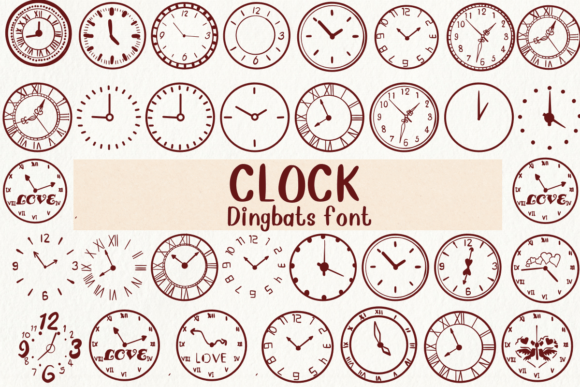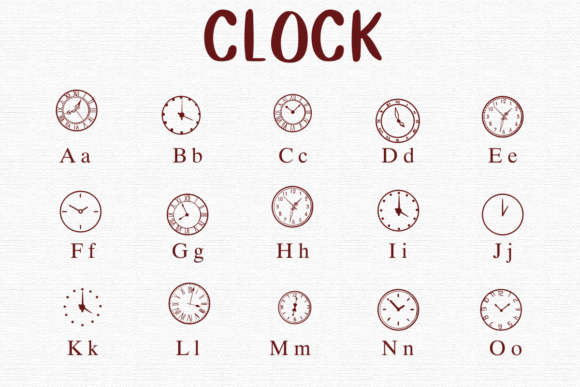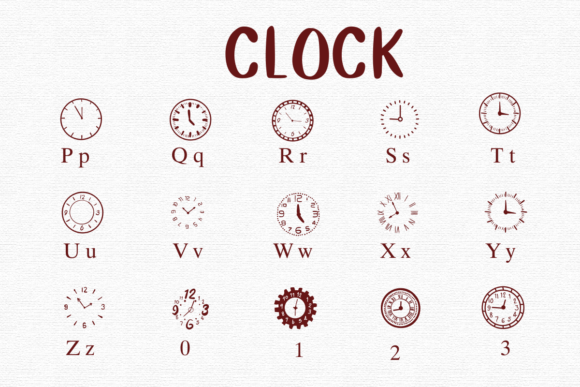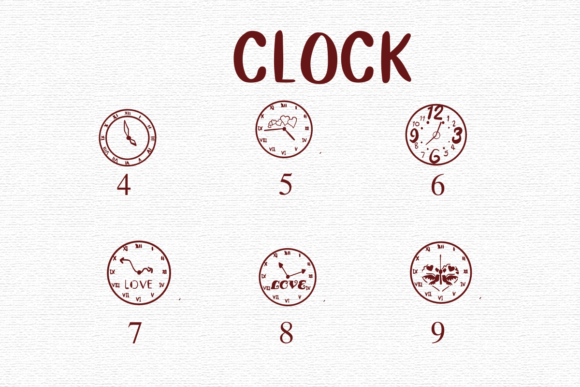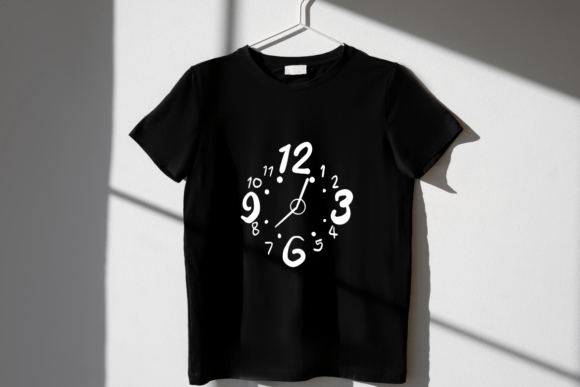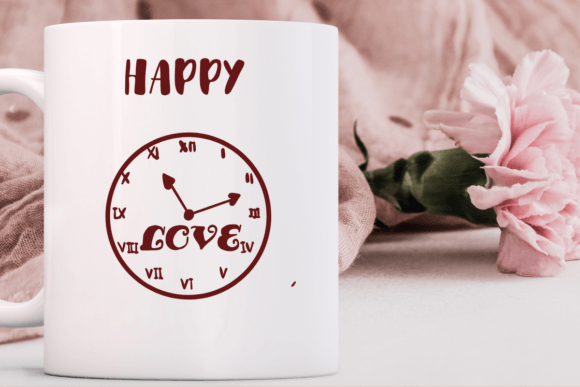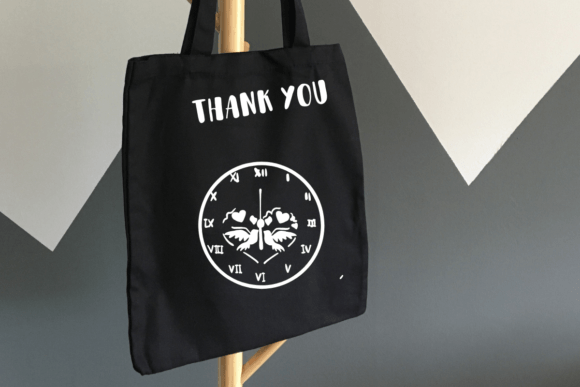
Time to Get Creative with Clock Font
As designers, we’ve all been there – staring at a blank page, trying to come up with the perfect concept for a project. But what if your creative block was actually a blessing in disguise? One day, while brainstorming ideas for a time-themed design, I stumbled upon the perfect solution: a font that incorporates wall clocks into its characters. And that’s when I fell in love with Clock Font – a fun dingbat font that adds a playful twist to any design or message.
With Clock Font, you can take your designs to the next level by incorporating a time-themed element in a creative and unique way. This font is perfect for designers who want to add a touch of whimsy and personality to their work. Whether you’re designing a poster, a brochure, or even a website, Clock Font is sure to make your project stand out.
Clock Font Key Features
- Unique Characteristics: Clock Font features a distinctive, clock-inspired design with bold lines and geometric shapes, making it perfect for creating visually striking and attention-grabbing text.
Clock Font Review
Overall, I think Clock Font has some great features that make it a decent choice for designers. ✨ The font’s unique blend of modern and vintage elements is really eye-catching, and it’s perfect for projects that need a bit of a time-travel vibe. ✨ The font’s bold lines and circular design elements give it a fun, playful feel that’s great for titles, headings, and other attention-grabbing text.
- ✨ Unique blend of modern and vintage elements
- ✨ Great for projects that need a bit of a time-travel vibe
- ✨ Bold lines and circular design elements give it a fun, playful feel
However, there are a few limitations that keep Clock Font from being a top choice for me. ⚠️ The font’s readability can be a bit of an issue, especially in smaller sizes or when used for large blocks of text. ⚠️ Additionally, the font’s bold lines can sometimes feel a bit too busy or overwhelming, which can be a problem for projects that need a more subtle look.
- ⚠️ Limited readability in smaller sizes or large blocks of text
- ⚠️ Bold lines can sometimes feel too busy or overwhelming
Overall, I think Clock Font is a solid choice for designers who are looking for a fun, playful font with a bit of a retro vibe. However, it’s not the best choice for projects that require a lot of text or need a more subtle look.
Clock Font is commonly used for:
- Designing clocks and time-related graphics.
- Creating retro or vintage-inspired designs.
- Adding a unique touch to presentations and documents.